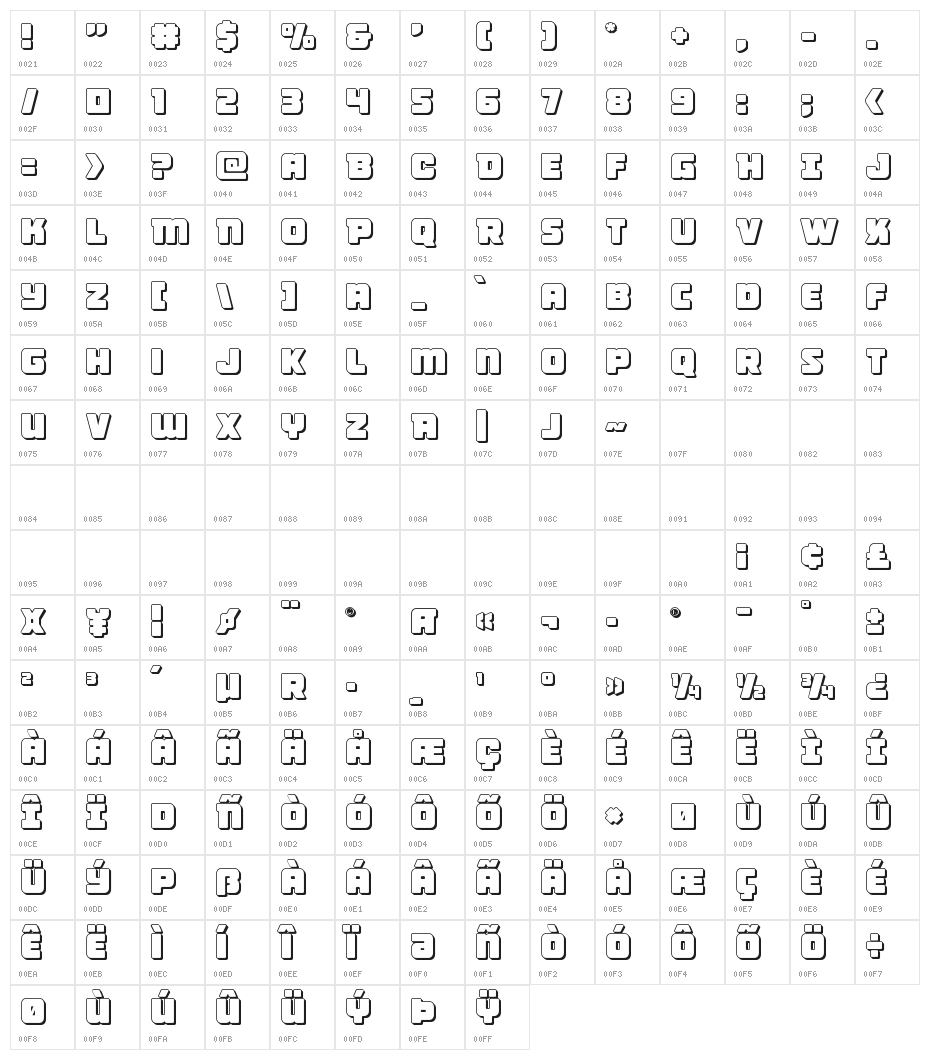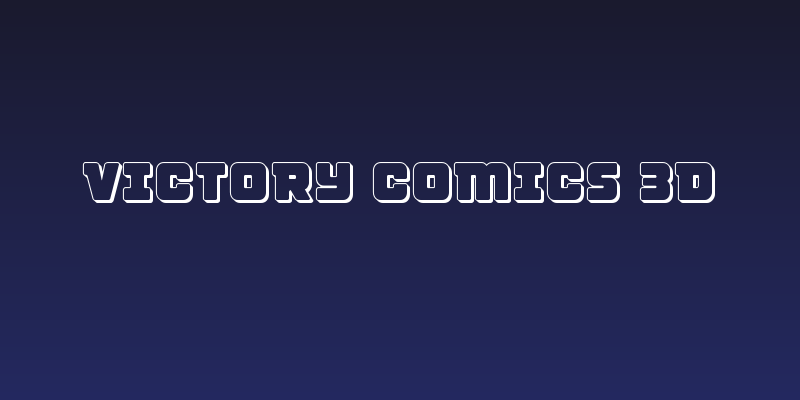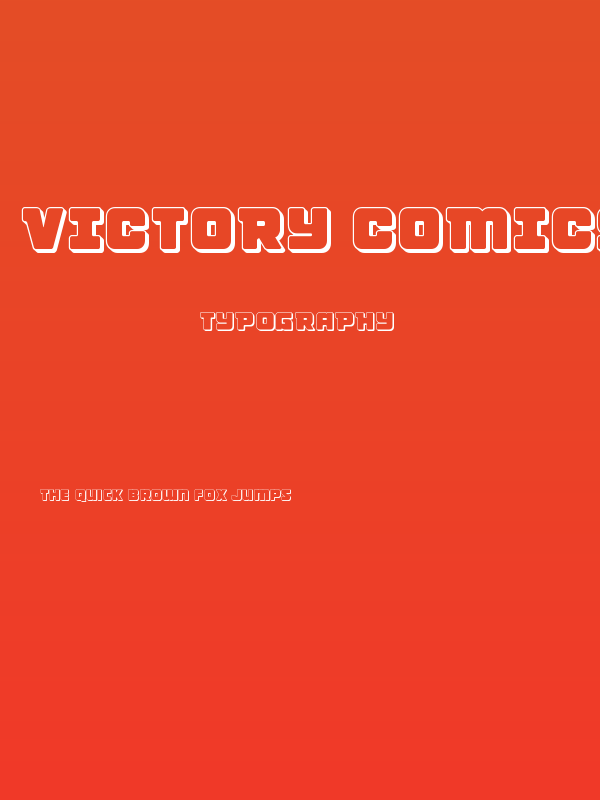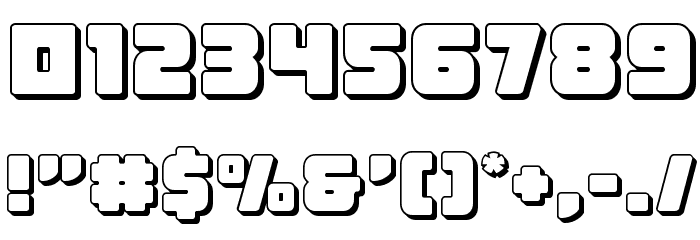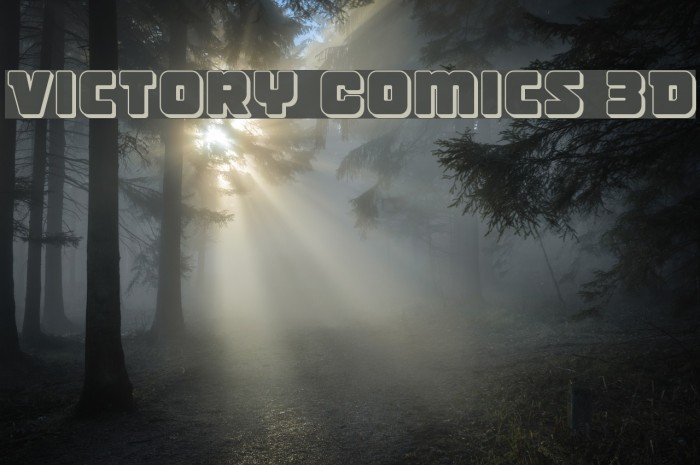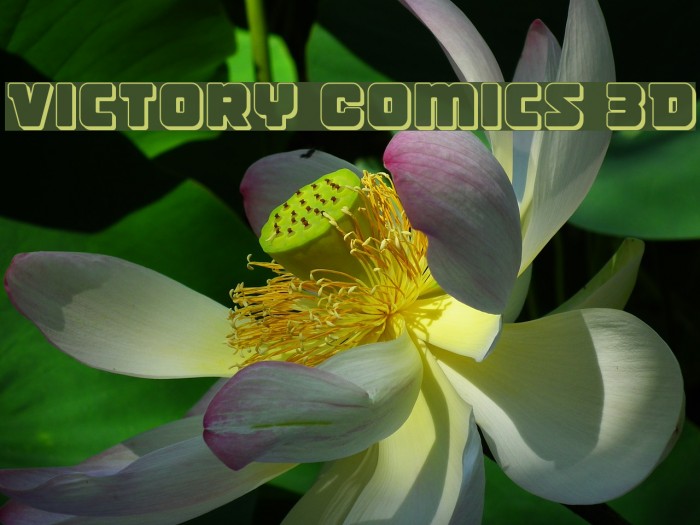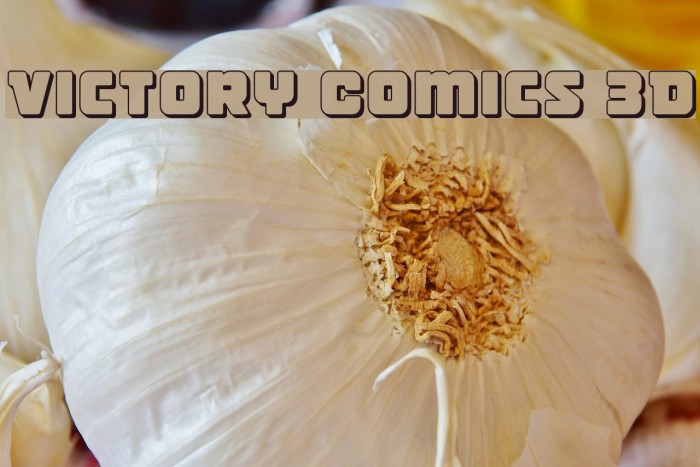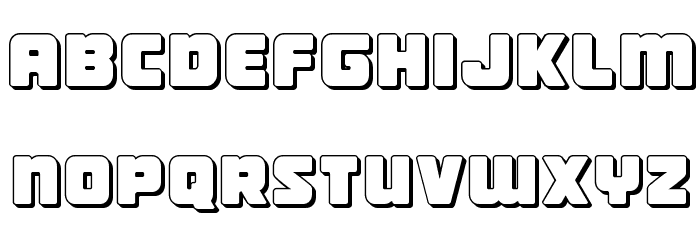
Victory Comics 3D Font
Victory Comics 3D Description
This font features a bold, three-dimensional style with a playful and dynamic appearance. The characters are outlined with a thick black border, giving them a strong presence and a comic-like feel. Each letter and number is designed with a blocky, geometric shape that adds to its robust and impactful look. The font maintains a consistent weight throughout, ensuring uniformity and balance. Its unique 3D effect is achieved through a clever use of shading and perspective, making it stand out in any design. The special characters are equally bold and maintain the same stylistic elements, ensuring cohesion across all glyphs.
| Overall Style | Playful, Comic |
| Proposed Projects | Ideal for comic book titles, playful posters, children's book covers, and eye-catching advertisements. |